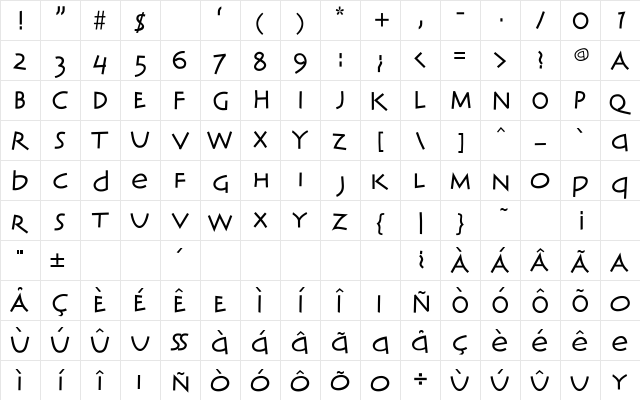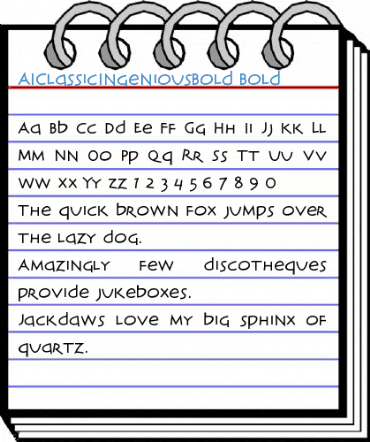
AIClassicIngeniousBold Bold
Design Context for AIClassicIngeniousBold
AIClassicIngeniousBold wears its vintage influences proudly, with letterforms that recall mid-century signage, classic packaging, and nostalgia-driven design. Its bold stroke weight gives it real presence on the page.
Ideal for diner signage, record shop branding, 70s/80s-themed projects, and heritage product labels.
Font Pairing: Combine AIClassicIngeniousBold with a simple slab or neutral sans - period-accurate companions reinforce the vintage feel without competing for attention.
Pro Tip: Lean into AIClassicIngeniousBold's period character by pairing it with aged paper textures, muted colour palettes, and vintage illustration styles.